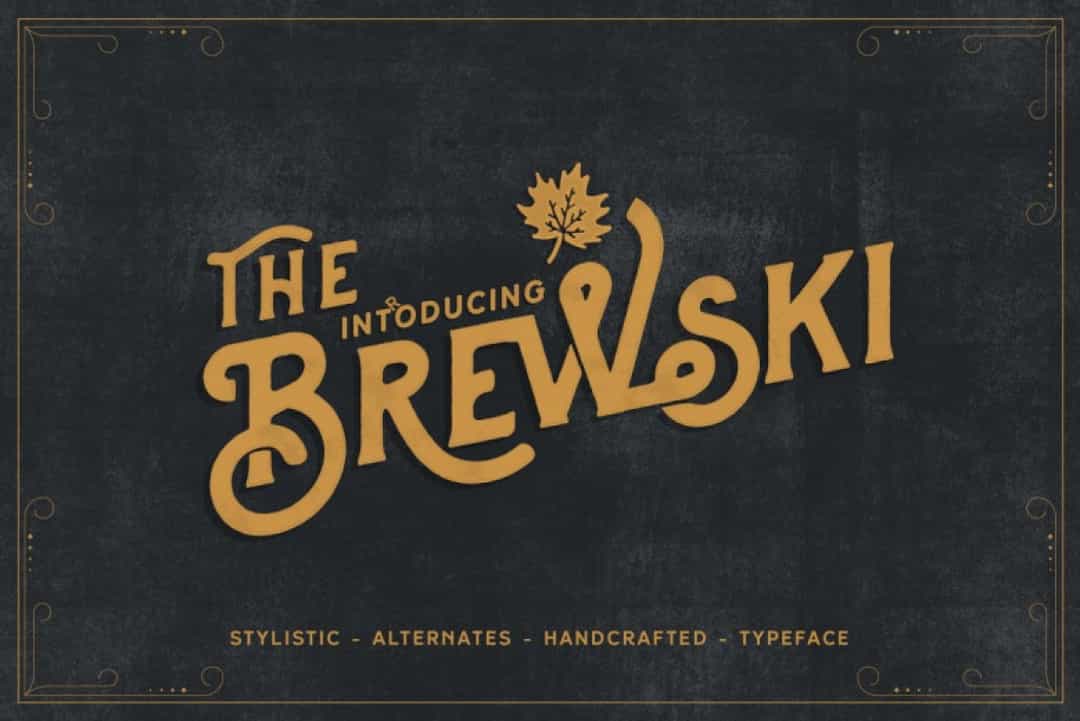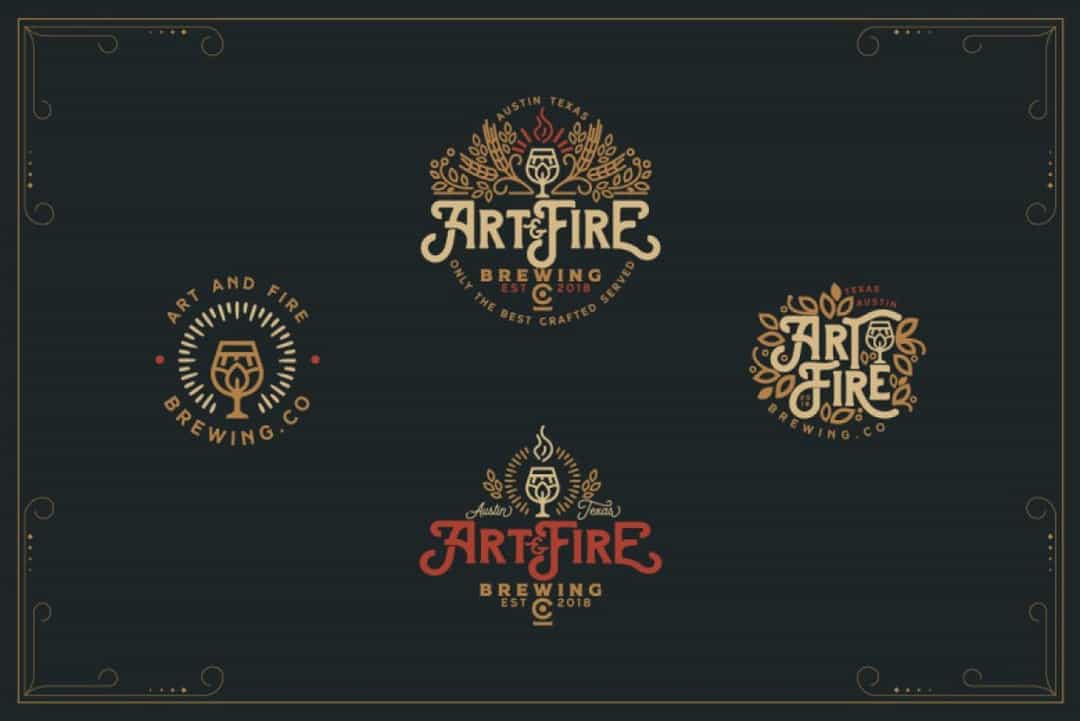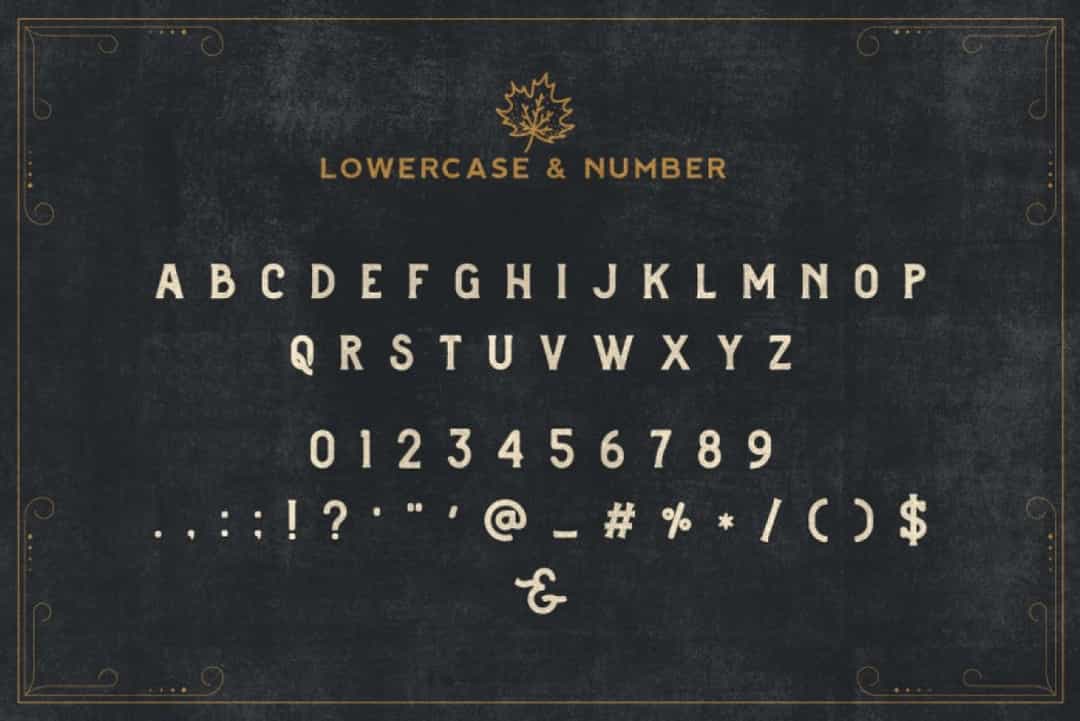
Brewski is an elegant hand drawn display serif font in vintage style with a hint of ornamentation, that was inspired by old-fashioned brewery packaging and beer advertising from the 20th century’s early years. Ideal for logo designs headlines packaging design or advertising.